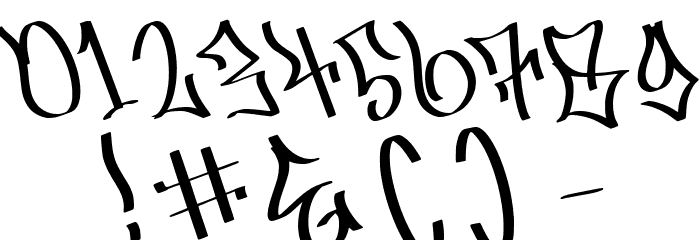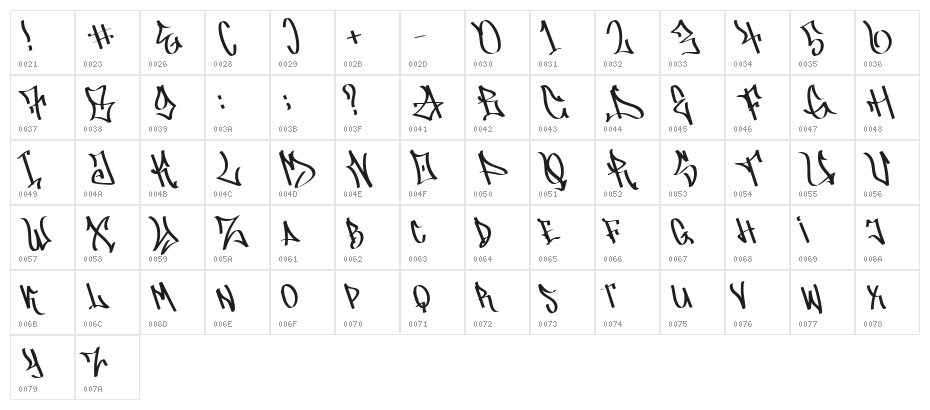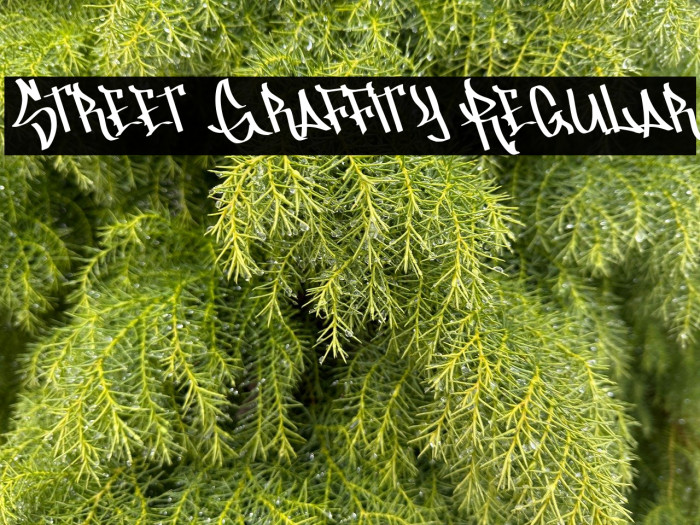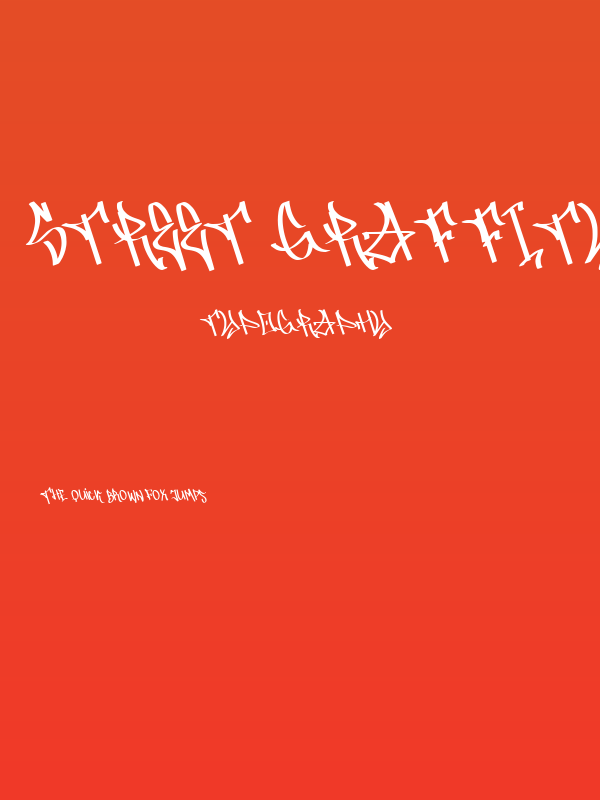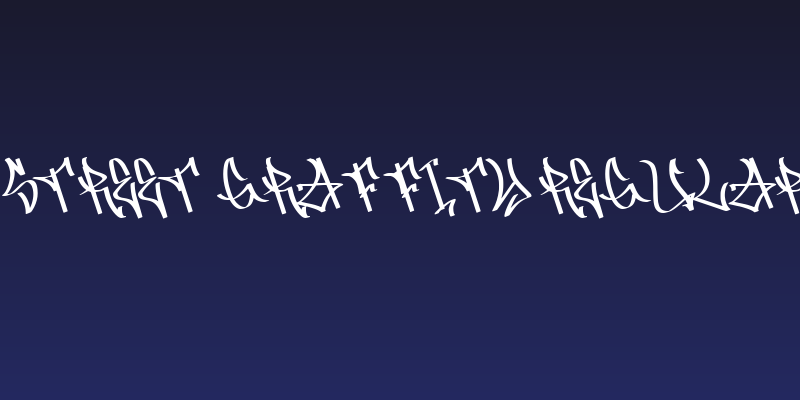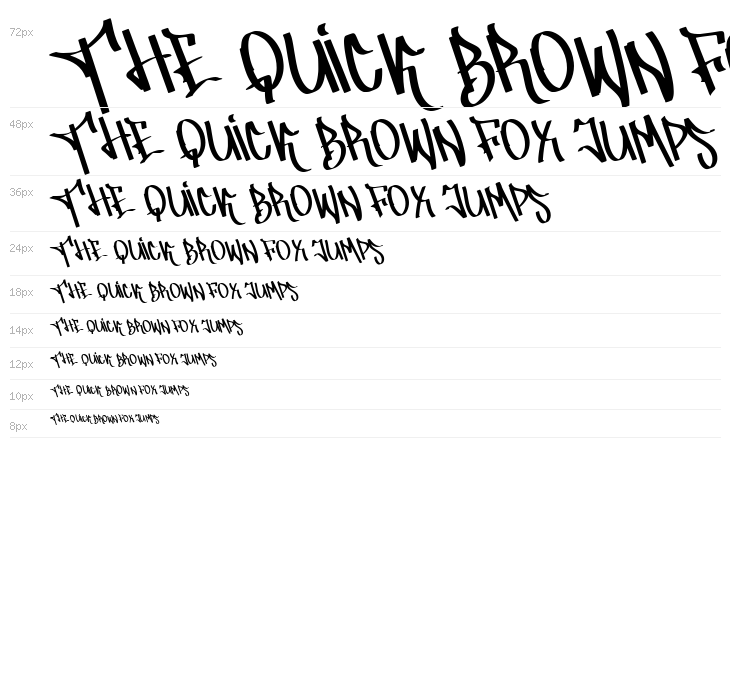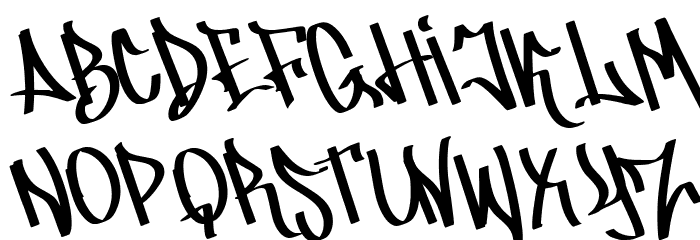
Street Graffity Regular Font
Street Graffity Regular Description
This font embodies the raw, energetic essence of street art and graffiti culture. Its letters are bold and dynamic, with sharp angles and exaggerated curves that mimic the spontaneous strokes of a spray can. The uppercase and lowercase letters maintain a consistent style, with a playful yet rebellious attitude. Numbers and special characters are equally expressive, adding to the font's versatility. The overall design is chaotic yet controlled, making it perfect for projects that require a bold statement.
| Proposed Projects | Ideal for urban-themed designs, streetwear branding, music album covers, and event posters. |